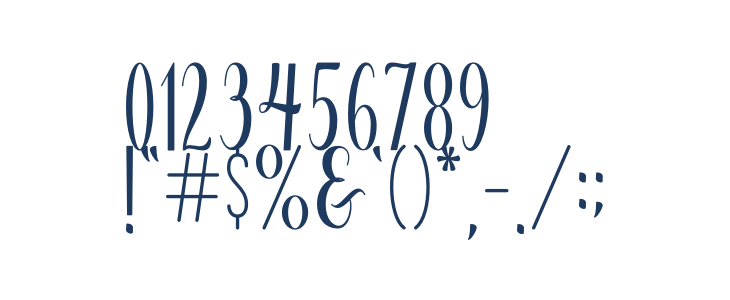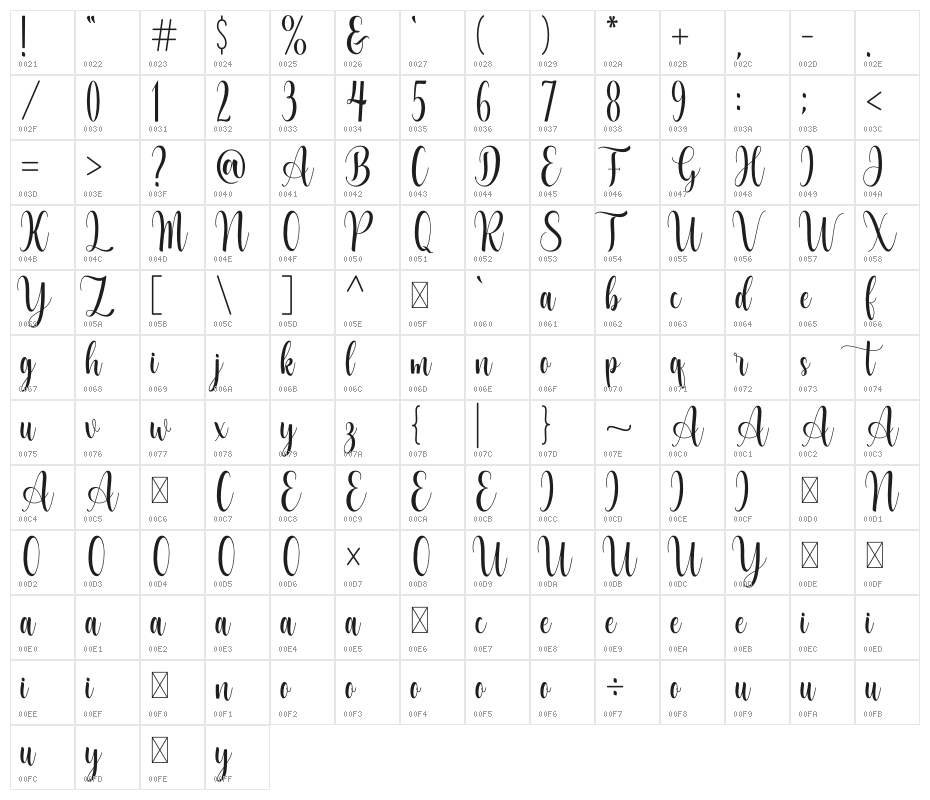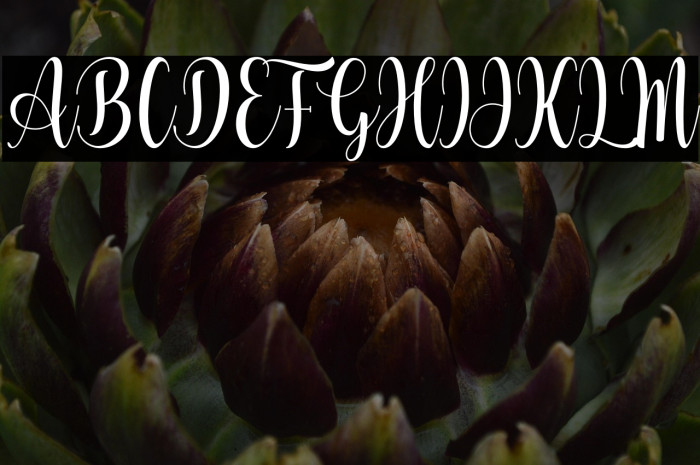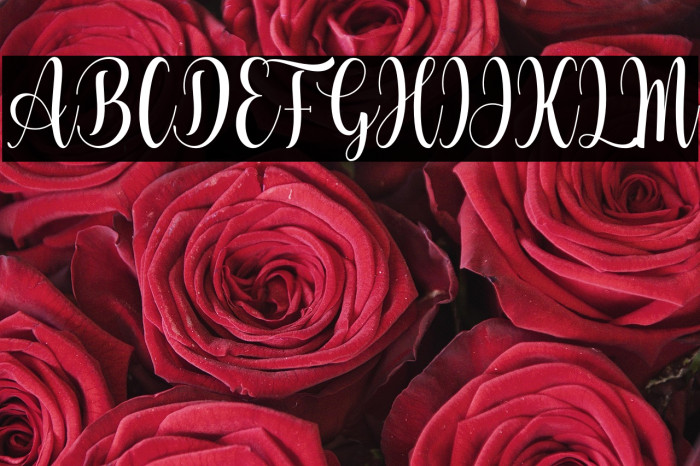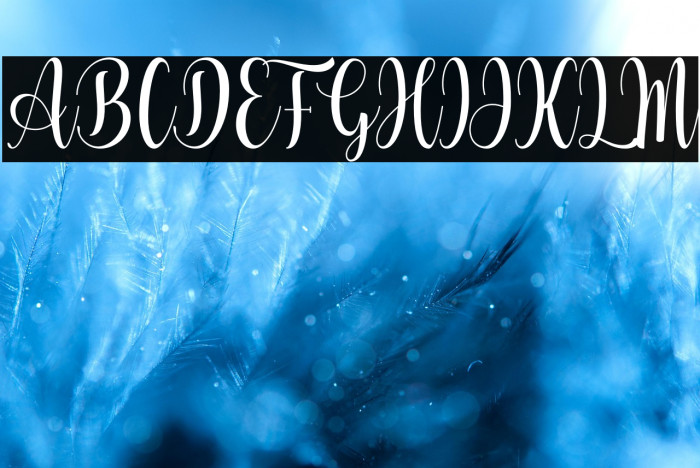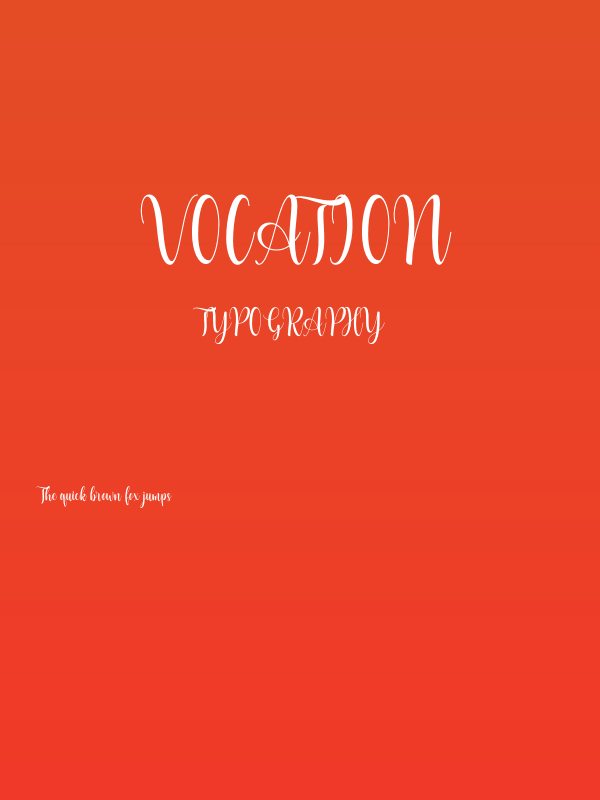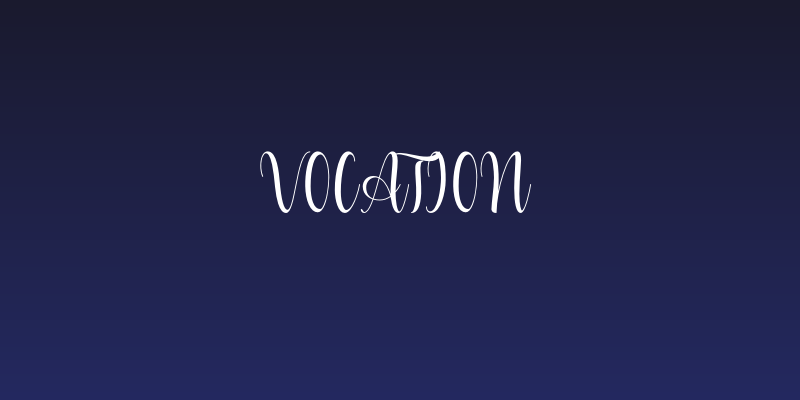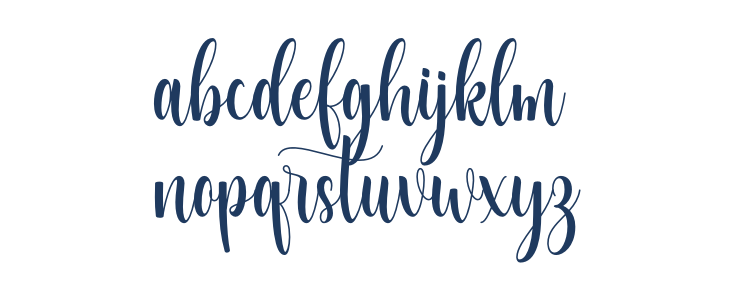
Vocation Font
Vocation Description
This font features an elegant and flowing script style with a modern touch. The uppercase letters are characterized by their tall, slender forms and graceful curves, while the lowercase letters maintain a consistent fluidity and connectedness. The numerals are distinct and maintain the same elegant style, making them easily readable. Special characters are designed to complement the overall aesthetic, enhancing the font's versatility. The strokes vary in thickness, adding a dynamic and lively feel to the text. This font is perfect for adding a personal and sophisticated touch to any design.
| Use Case | Logos, Invitations, Branding |
| Proposed Projects | Ideal for wedding invitations, branding, greeting cards, and elegant packaging. |